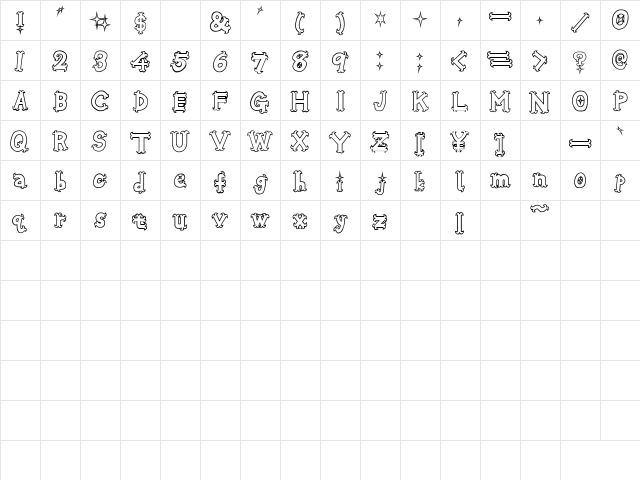
Oshare Honenuki Regular Font Preview
Oshare Honenuki Regular
Oshare Honenuki Regular Font Details
Design Context for Oshare Honenuki Typeface
Oshare Honenuki is a composed and adaptable typeface that performs quietly and consistently across a wide range of design contexts.
Pro Tip: Use Oshare Honenuki in both headline and body roles to test its range before committing to a single application.